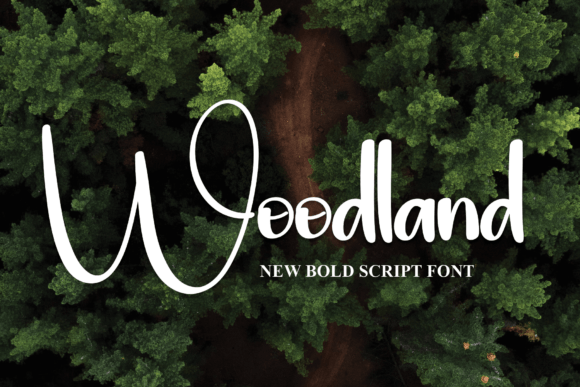
Introducing Woodland Font, a bold and vibrant font family designed to make a lasting impression. This robust script font is crafted to add an energetic touch to your creative projects, demanding attention and leaving a lasting impact.
Unleash the Power of Woodland Font:
- Ignite Passion in Sports Designs: Woodland's dynamic curves and sharp edges evoke the energy and excitement of the sports world. Use it to create captivating logos, posters, and team jerseys that ignite passion and inspire action.
- Elevate Movie and Documentary Titles: Woodland's bold presence commands attention, making it the perfect choice for movie and documentary titles. Its unique style adds a cinematic flair, setting the stage for an immersive viewing experience.
- Create Striking Logos and Posters: Woodland's distinct character shines in logos and posters, cutting through the clutter and leaving a lasting impression. Its ability to convey strength and movement makes it ideal for brands and projects seeking to make a powerful statement.
- Capture the Adventure in Game Design: Woodland's adventurous spirit is a perfect fit for game design. Its bold lines and dynamic flow add excitement and energy to character designs, game titles, and user interfaces, immersing players in a captivating gaming experience.
- Make Book Covers and Headlines Stand Out: Woodland's bold personality makes it an excellent choice for book covers and headlines. Its ability to grab attention and convey a sense of urgency is sure to make your publications stand out on shelves and in digital spaces.
- Endless Creative Possibilities: Woodland's versatility extends beyond the examples above. Its powerful presence adds a unique touch to a wide range of projects, including social media graphics, website designs, and marketing materials. Explore its potential and unlock new creative horizons.
Experience the Woodland Font Difference:
- Bold and Impactful: Woodland's thick strokes and sharp angles create a striking visual impact, ensuring your designs demand attention.
- Expressive and Dynamic: Woodland's flowing lines and energetic curves convey a sense of movement and vitality, bringing life to your creative projects.
- Timeless and Versatile: Woodland's classic script style transcends trends, making it a timeless choice for a wide range of design applications. Its versatility allows it to seamlessly blend with various design aesthetics.
- Perfectly Paired: Woodland's complementary uppercase and lowercase letters, along with a selection of stylish alternates, provide endless possibilities for creating visually appealing and harmonious designs.
- Effortless Customization: Woodland's intuitive design makes it easy to customize, allowing you to adjust spacing, kerning, and other settings to perfectly fit your creative vision.
Elevate Your Designs with Woodland Font:
Woodland Font is more than just a font; it's a creative force that amplifies your message and captivates your audience. Its bold presence and dynamic style are sure to leave a lasting impression on all who encounter it. Embrace the power of Woodland Font and unlock a world of creative possibilities.